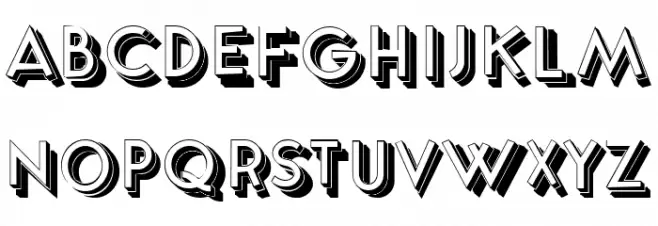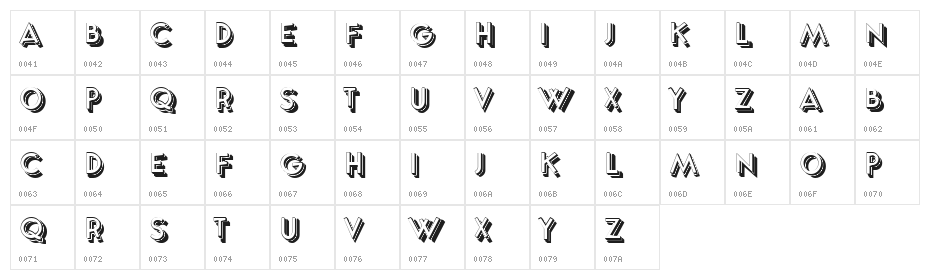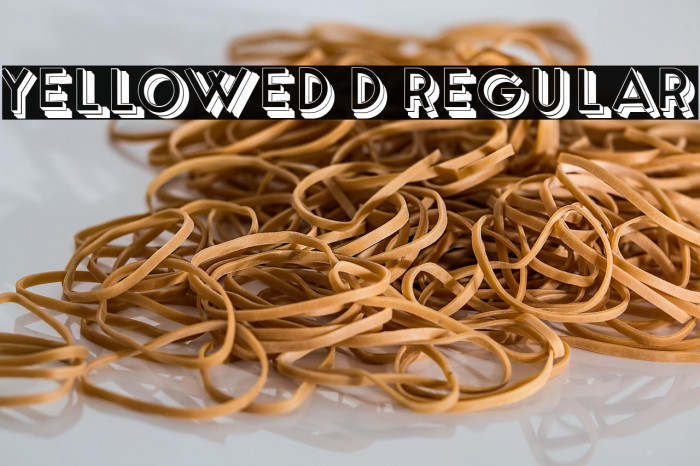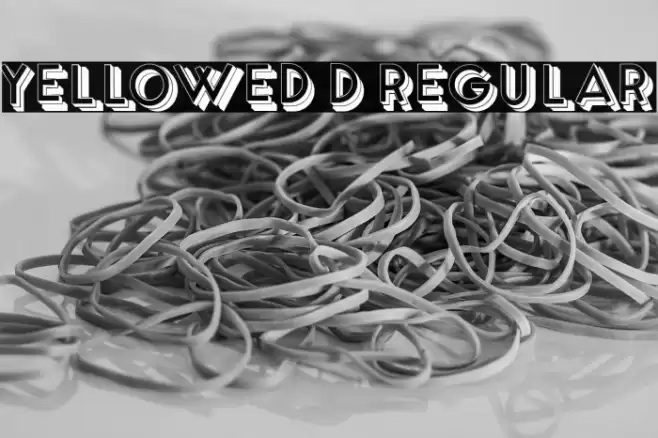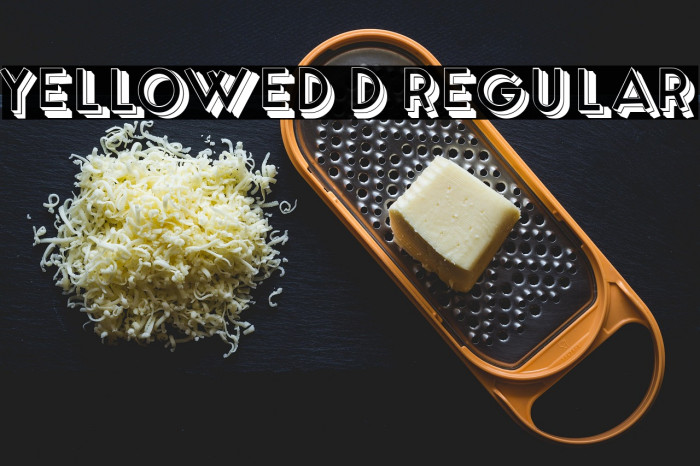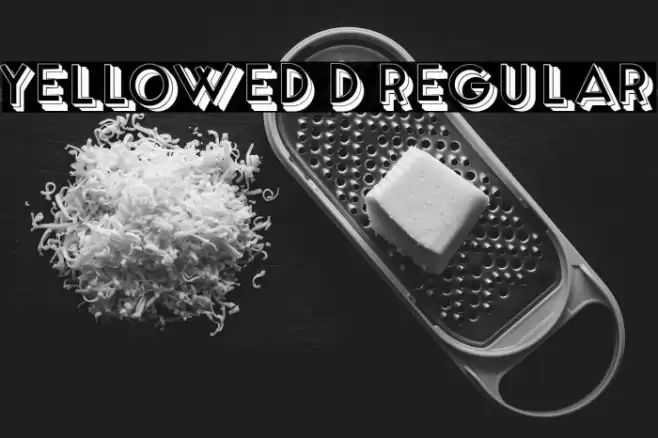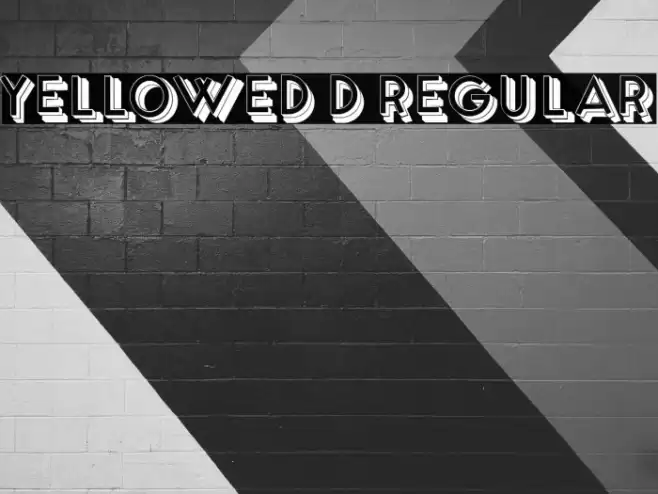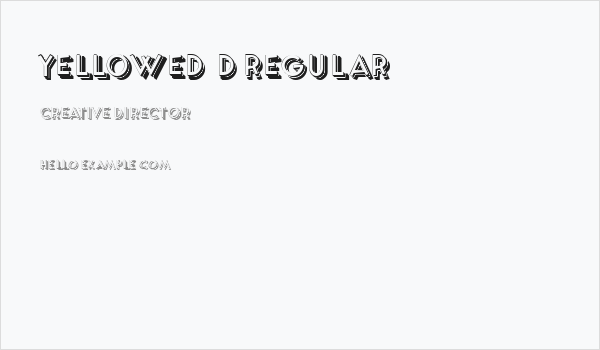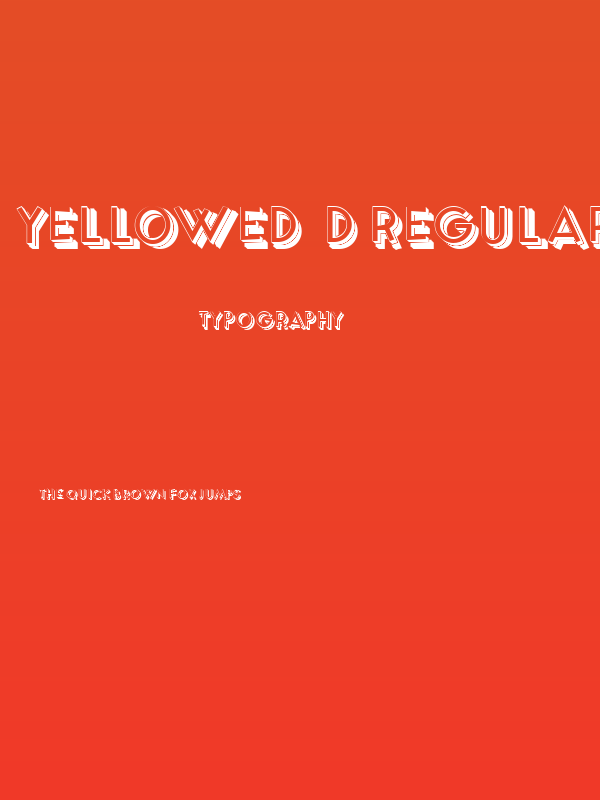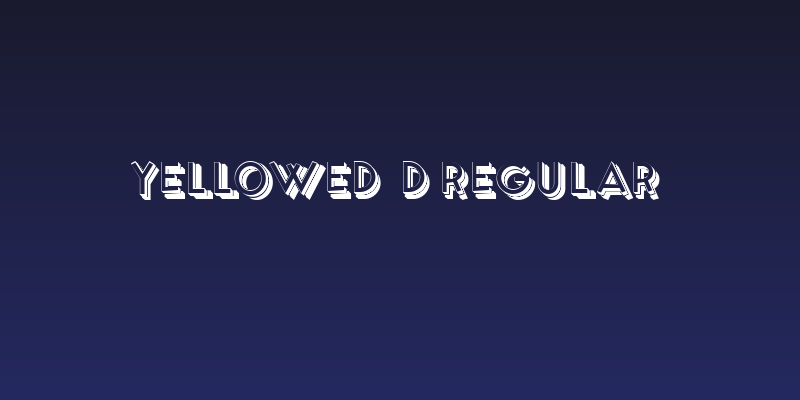
Yellowed 3D Regular Font
Yellowed 3D Regular Description
This font features a bold, three-dimensional style with a strong visual impact. The letters are capitalized and exhibit a shadow effect that gives them depth and a sense of movement. The design is geometric and structured, with clean lines and sharp angles that create a modern and dynamic appearance. The font's 3D effect is achieved through the use of layered outlines and shading, which adds a playful yet sophisticated touch. This style is particularly eye-catching and can be used to draw attention in various design contexts.
| Proposed Projects | Ideal for posters, headlines, logos, and any design requiring a striking visual element. |